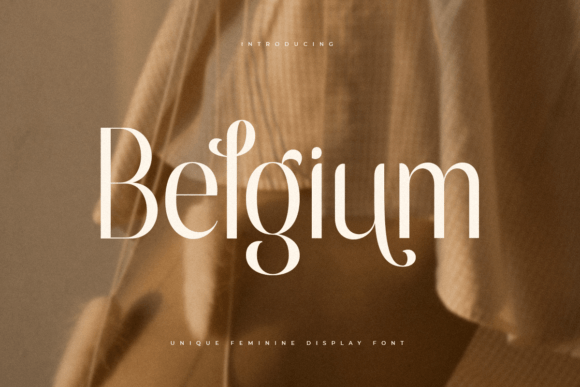
Discover the Timeless Charm of the Belgium Font
Have you ever stared at a beautiful design and thought to yourself, “I wish I could create something just as stunning”? That’s exactly what happened to me when I first laid eyes on the Belgium Font. Its elegant, bold strokes immediately caught my attention, and I knew I had to learn more about this incredible font.
The Belgium Font is a versatile serif font that’s perfect for creating gorgeous wedding invitations, beautiful stationery art, and eye-catching social media posts. Its timeless charm makes it a valuable addition to any designer’s toolkit. With the Belgium Font, you can add a touch of sophistication and elegance to any project, whether it’s a wedding invitation or a social media post.
Whether you’re a seasoned designer or just starting out, the Belgium Font is a must-have. Its versatility and timeless charm make it an essential tool for anyone looking to create beautiful, professional designs.
Belgium Font Key Features
- Unique Characteristics: The font features a unique blend of modern and traditional typography, with a distinctive flair and elegance that sets it apart from other fonts.
Designer Review: Belgium Font
Overall, the Belgium Font has some great qualities, but it also has some limitations that might make it less appealing to certain designers. Let’s dive in and see what we’re working with.
- The Belgium Font has a unique and elegant feel to it, making it perfect for formal or high-end designs.
- The font is highly legible, even at smaller sizes, which is great for body text or captions.
- The font family includes a range of weights, from light to bold, making it easy to create visually appealing typography.
- The Belgium Font might be too formal for some designs, making it less versatile than other font options.
- The font can be quite ornate, which might make it difficult to read for people with visual impairments.
- The font family is relatively small, which might limit its use in larger-scale designs.
In conclusion, the Belgium Font is a solid choice for designers who need a elegant and legible font for formal or high-end designs. However, it might not be the best fit for more casual or playful designs. Overall, I would give the Belgium Font 3.5 out of 5 stars.
Belgium Font: A Practical Application Guide
For optimal results, use Belgium Font in combination with other sans-serif fonts to create a balanced and modern design. Experiment with different font sizes and styles to achieve the desired visual effect. Additionally, use Belgium Font in conjunction with bold or italic text to add emphasis and create visual interest.
Belgium Font is ideal for use in logos, headings, and titles. It’s also suitable for use in corporate identity materials, such as business cards and letterheads. Additionally, Belgium Font can be used in digital design projects, such as websites and mobile apps, to create a modern and sleek visual identity.